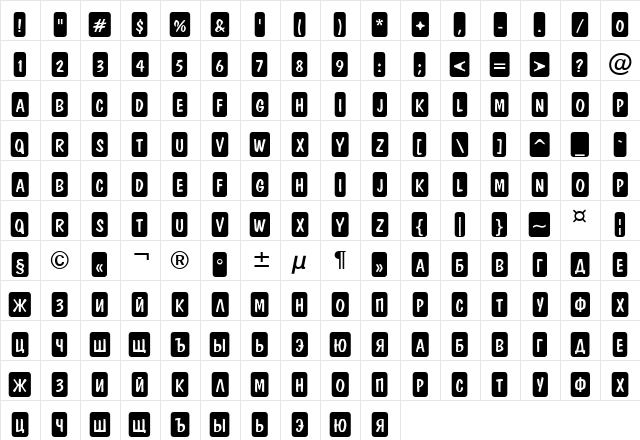
a_DomInoTtlCmRndCrn Regular
Design Context for a_DomInoTtlCmRndCrn Typeface
a_DomInoTtlCmRndCrn is a composed and adaptable typeface that performs quietly and consistently across a wide range of design contexts.